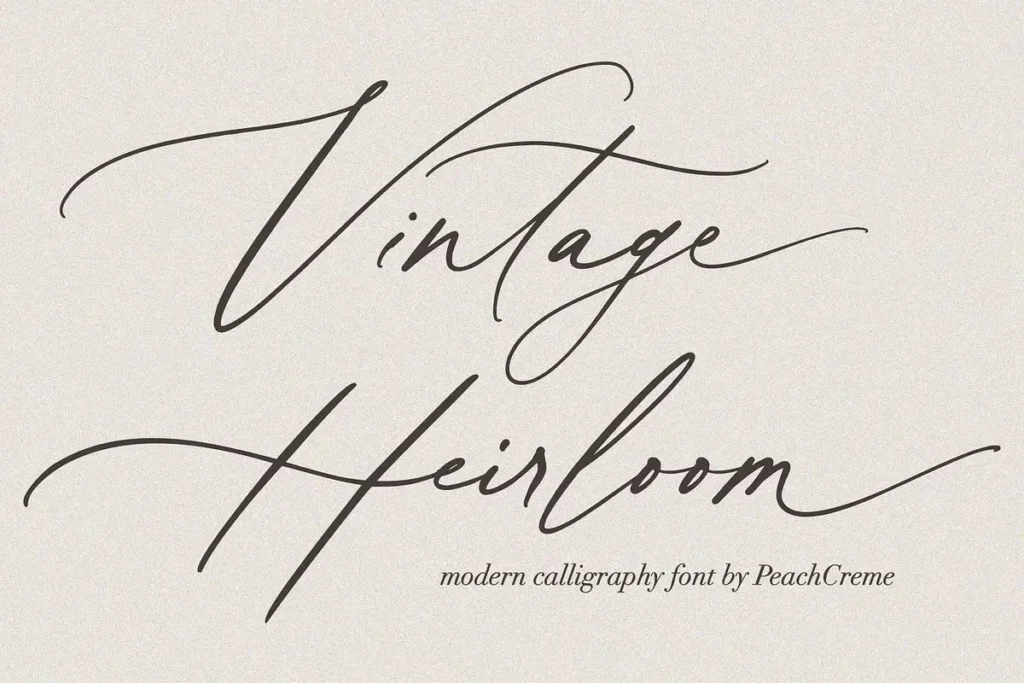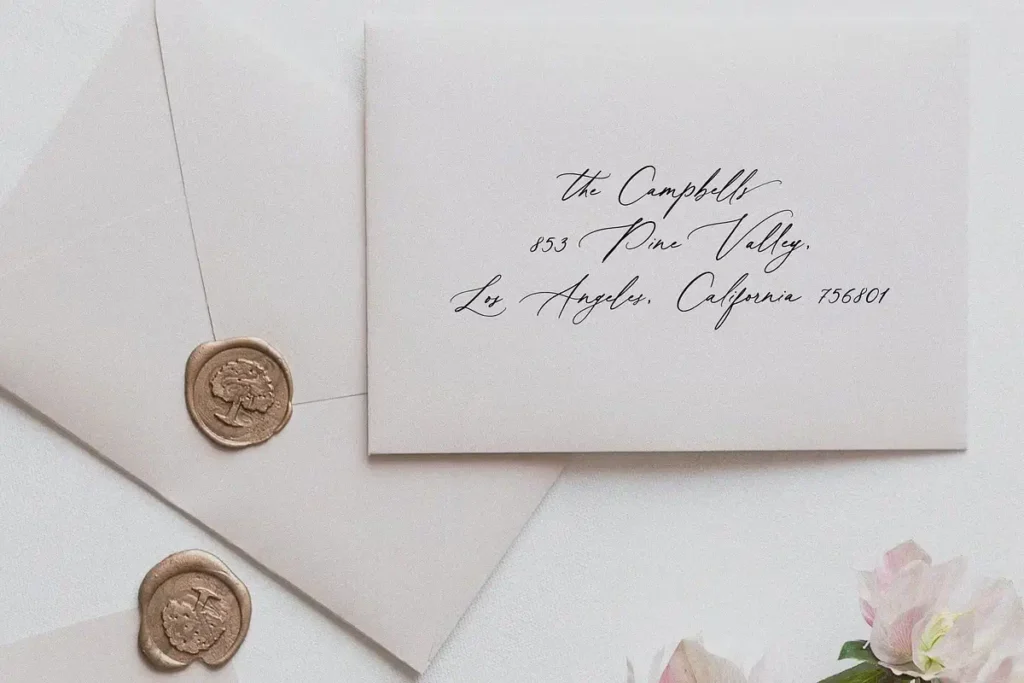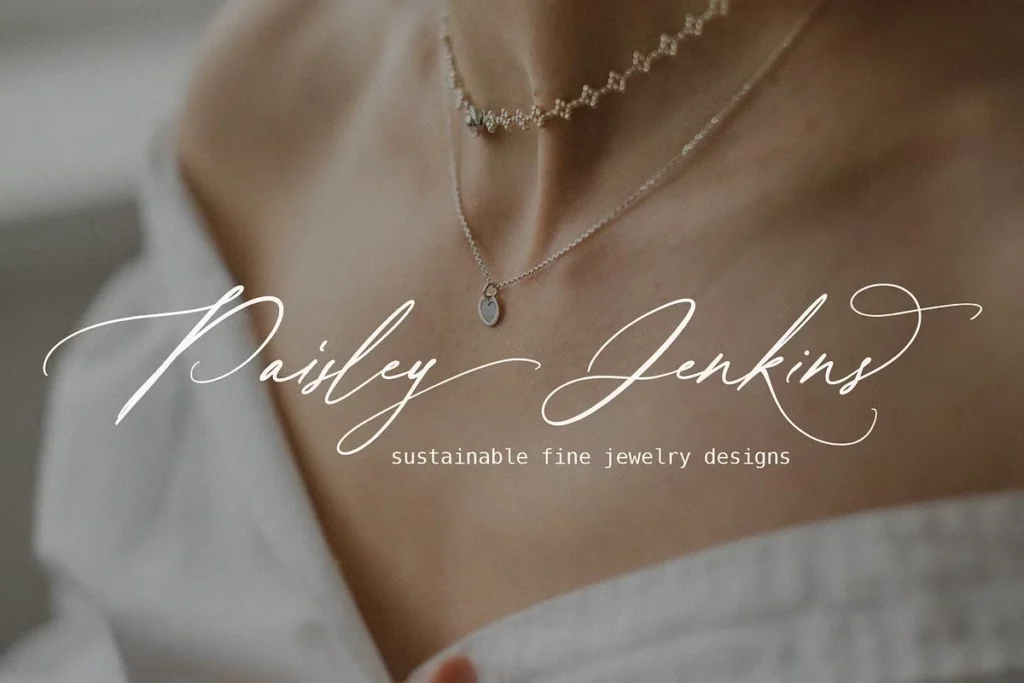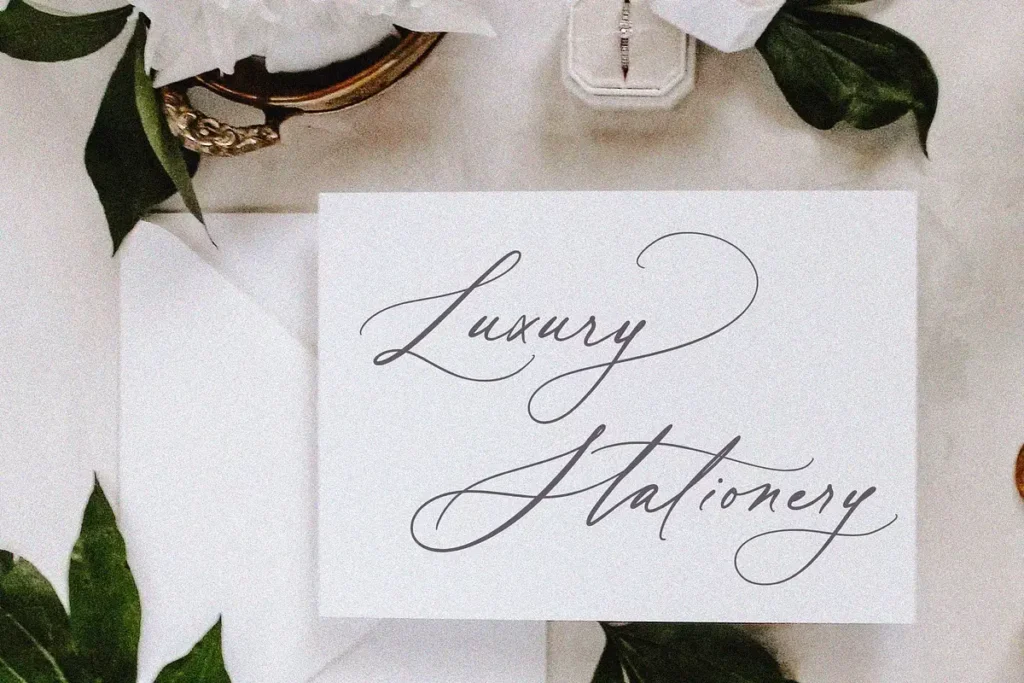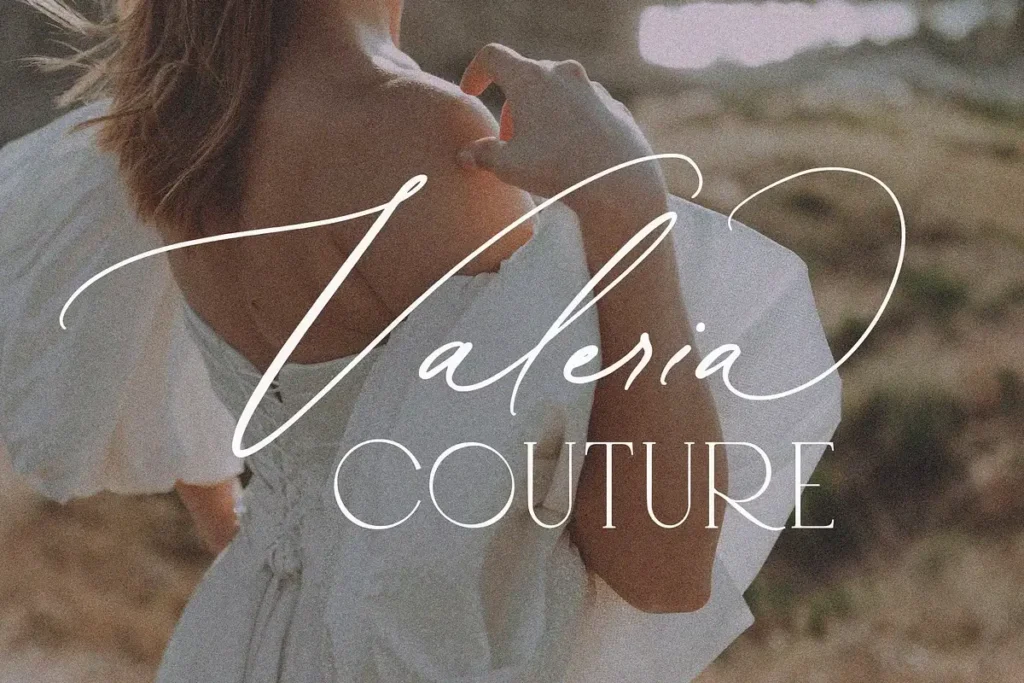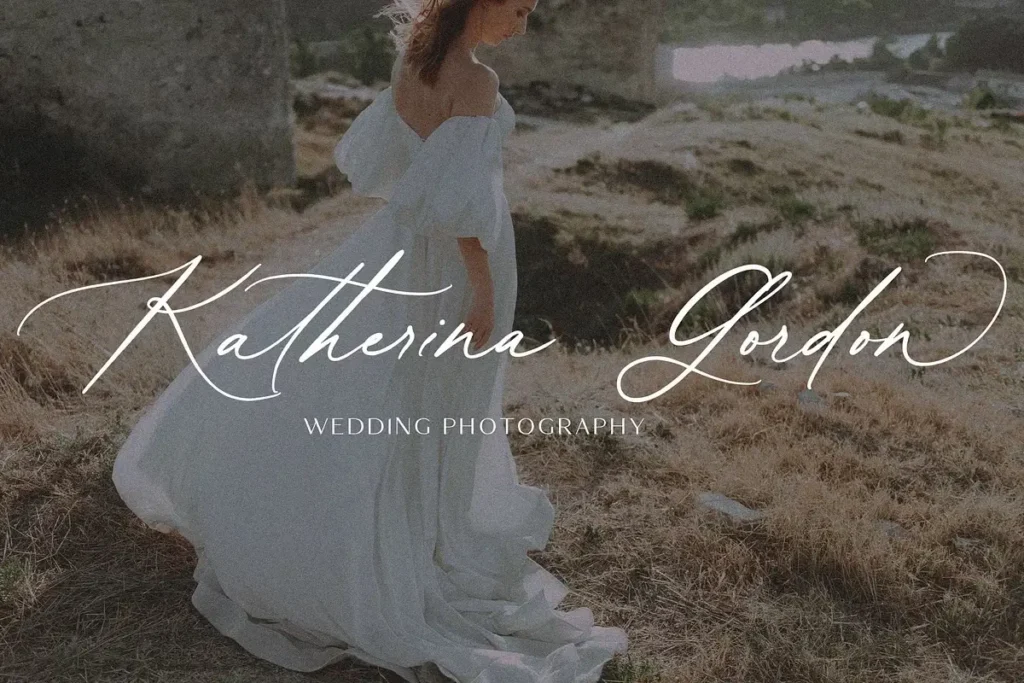
Vintage Heirloom Calligraphy Font
Vintage Heirloom Calligraphy Font in elegant handwritten style
Vintage Heirloom is a graceful calligraphy font with a soft, luxurious spirit. Its flowing lines and thoughtful details bring a sense of timeless elegance to any design. Whether you’re creating for print or digital, this script offers a refined, handwritten touch that feels both personal and polished.
Crafted with Flow and Finesse
The charm of Vintage Heirloom lies in its balance. The letterforms are smooth and deliberate, with gentle curves and a slightly slanted rhythm that mimics the movement of real hand-calligraphy. It comes with a full set of uppercase and lowercase letters, numerals, punctuation, and 52 ligatures that help text feel more natural and fluid. Three different swashes for each lowercase letter make it easy to add just the right amount of flair, without ever feeling overdone.
Perfect Moments, Perfect Typeface
This font was made for elegant occasions and high-end aesthetics. It’s a natural choice for wedding invitations, bridal stationery, and save-the-date cards. It also pairs beautifully with feminine branding, premium packaging, and refined website headers. Wherever there’s a need for softness, beauty, or a touch of nostalgia, Vintage Heirloom finds its place with ease.
Perfect for:
• Wedding invitations and save-the-date cards
• Feminine or upscale branding
• Boutique product packaging
• Website headers and banners
• Personal notes, journals, or keepsakes
• Seasonal or holiday greeting cards
Romantic script font Vintage Heirloom used for couture label design
Vintage Heirloom calligraphy font used for jewelry branding
Vintage Heirloom calligraphy font on luxury stationery design
Wedding photography logo using Vintage Heirloom calligraphy font
Vintage Heirloom calligraphy font shown on wedding envelope
A Font That Leaves an Impression
Vintage Heirloom brings warmth and elegance to the page. Its swashes and ligatures aren’t just ornamental—they guide the eye, soften the rhythm, and create a feeling of care and craft. Whether used for names, quotes, or full phrases, it has a way of making each word feel considered and beautifully placed.